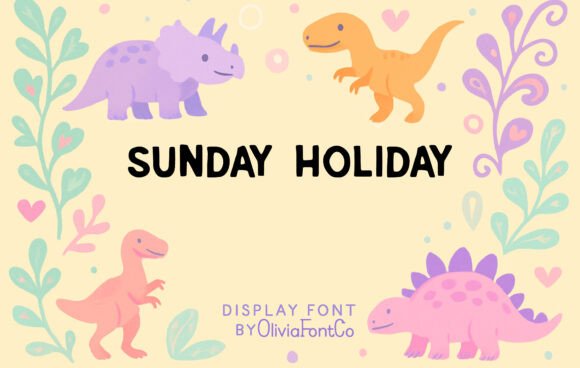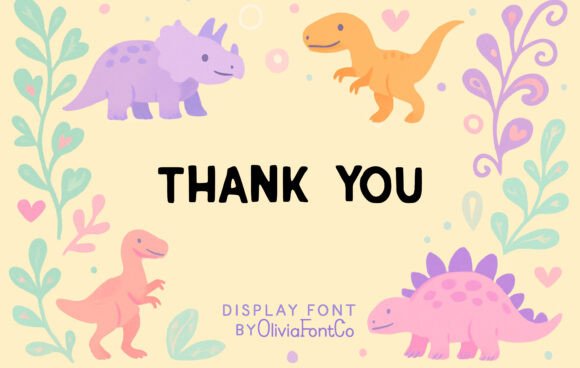
Discover the Versatility of Gerry Font: Elevate Your Designs to New Heights
In the world of typography, a font can make or break a design. It’s the foundation upon which your creative ideas are built, and it can either elevate or detract from your vision. If you’re a designer, crafter, or simply someone who appreciates the art of typography, you’re in luck. Gerry Font is here to revolutionize your designs and take your creative ideas to the highest level.
A Font Designed for Versatility
Gerry Font is more than just a font – it’s a tool designed to help you bring your creative ideas to life. Its primary goal is to be a true favorite among designers, and it’s clear that it’s on a mission to achieve just that. With its clean lines, elegant curves, and exceptional legibility, Gerry Font is the perfect choice for a wide range of design projects.
Legible and Versatile
One of the standout features of Gerry Font is its exceptional legibility. Whether you’re using it as a title or body text, this font looks great in any context. Its clarity and precision make it easy to read, even at smaller sizes, ensuring that your message always gets across. Whether you’re designing a magazine headline, a t-shirt, or a social media post, Gerry Font is up to the task.
Perfect for a Variety of Designs
Gerry Font’s versatility is one of its greatest strengths. It’s a font that can be used in a multitude of design projects, including:
- Magazine headlines: Add a touch of elegance and sophistication to your magazine with Gerry Font.
- T-shirts: Create eye-catching and stylish designs for t-shirts that will stand out from the crowd.
- Social media: Elevate your social media presence with Gerry Font’s clean and modern aesthetic.
- Branding: Establish a strong brand identity with a font that’s both professional and stylish.
- Wedding invitations: Add a touch of romance and whimsy to your wedding invitations with Gerry Font.
- Cards: Create beautiful and heartfelt cards for any occasion with this versatile font.
Why Choose Gerry Font?
So why choose Gerry Font over other fonts on the market? Here are just a few reasons:
- Exceptional legibility: Gerry Font is designed to be easy to read, making it perfect for body text or titles.
- Versatility: This font can be used in a wide range of design projects, from magazines to t-shirts.
- Elegant design: Gerry Font’s clean lines and elegant curves make it a stylish addition to any design.
- Professional look: This font is perfect for designs that require a professional and polished look.
In conclusion, Gerry Font is a versatile and elegant font that’s perfect for designers, crafters, and anyone who appreciates the art of typography. Its exceptional legibility, stylish design, and versatility make it a valuable addition to any design project. Whether you’re looking to create a magazine headline, a t-shirt design, or a wedding invitation, Gerry Font is the perfect choice. So why wait? Discover the power of Gerry Font and take your designs to new heights.
With Gerry Font, you can:
- Create stunning designs that capture attention
- Establish a strong brand identity
- Elevate your creative ideas to new heights
So what are you waiting for? Try Gerry Font today and experience the difference for yourself.